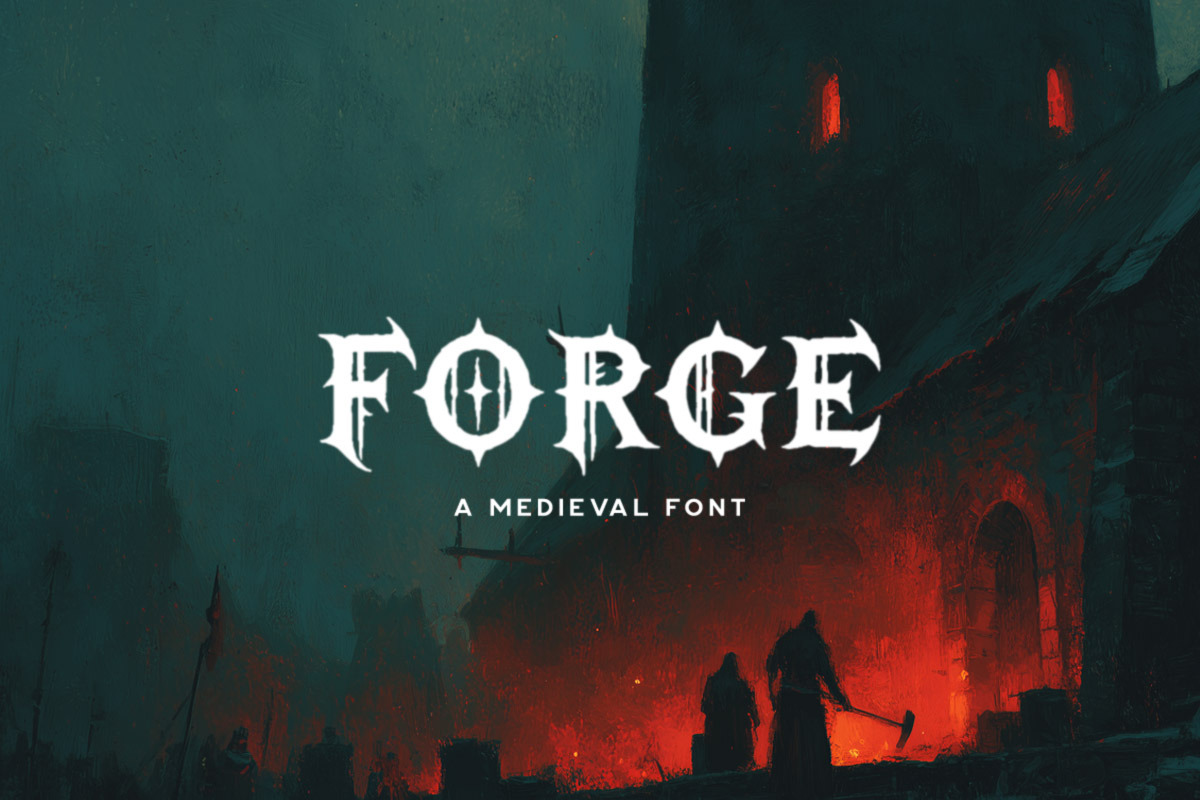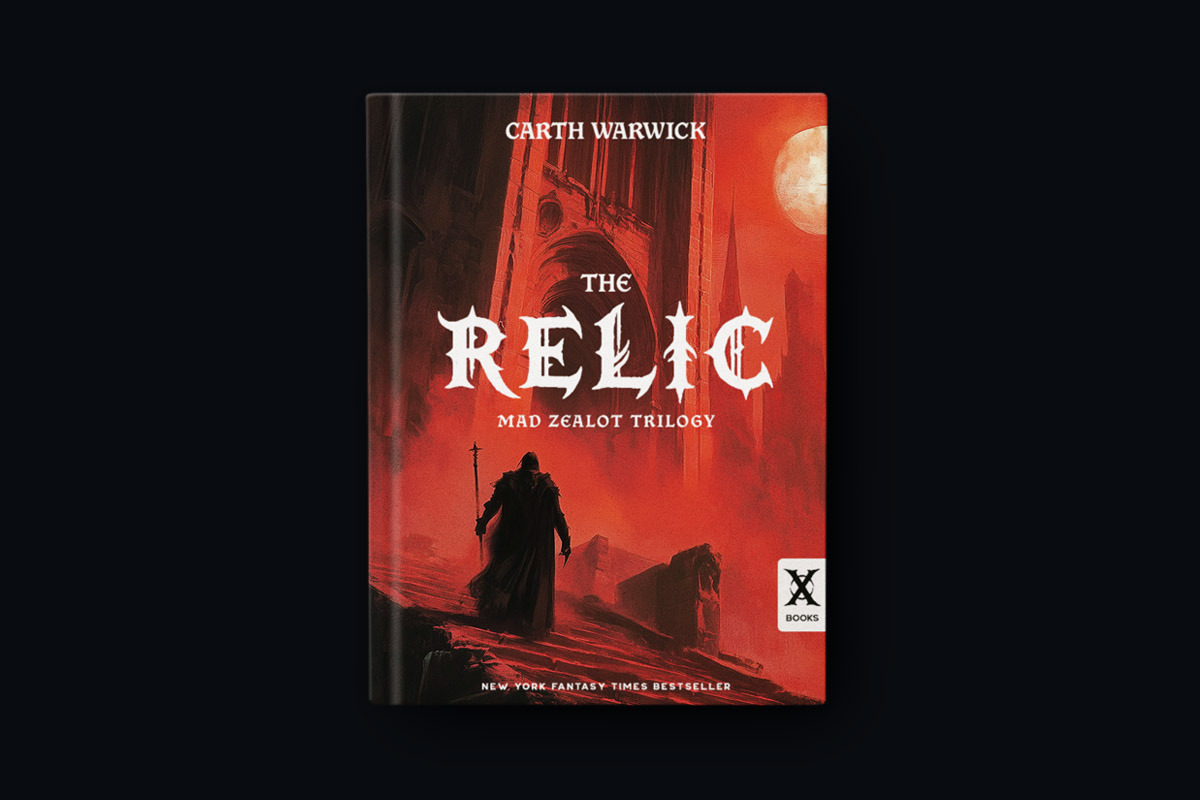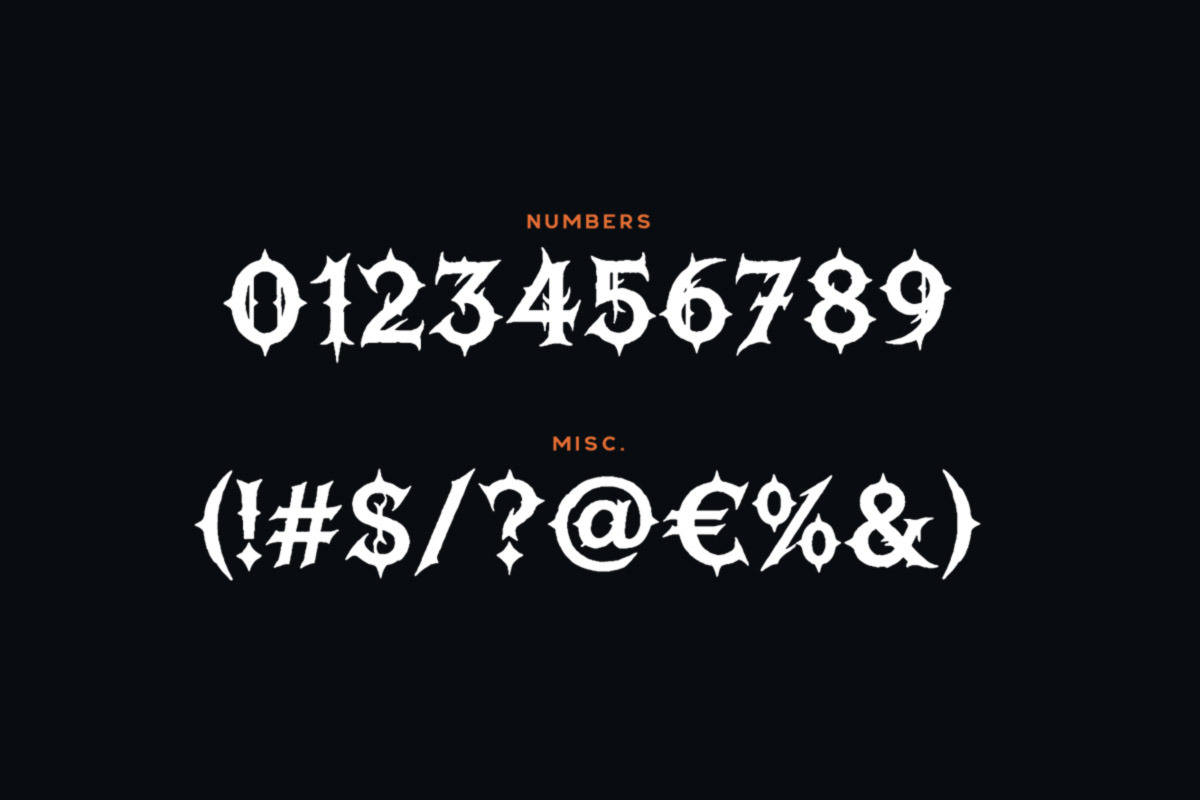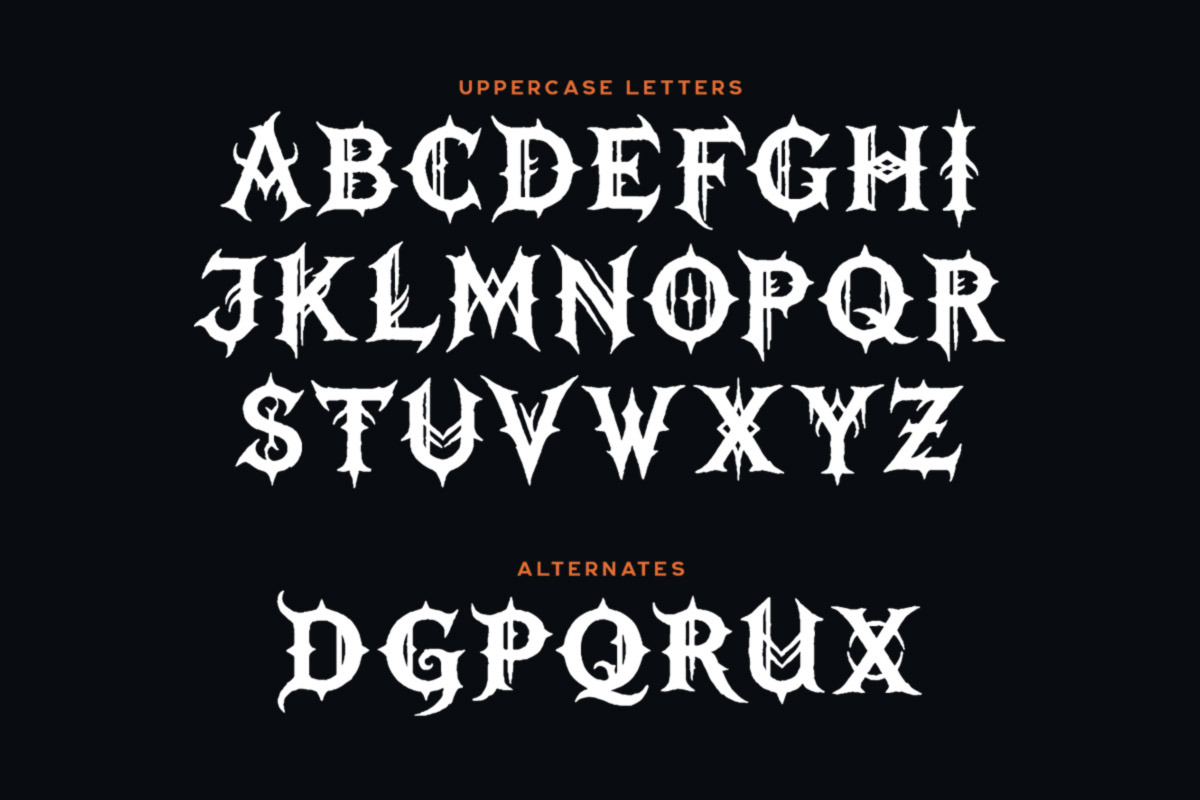
Forge Typeface
Forge is a bold medieval display font inspired by forged steel, ancient relics, and dark fantasy worlds. With sharp, battle-worn letterforms and alternate characters, it’s perfect for fantasy book covers, game titles, logos, posters, and epic branding.